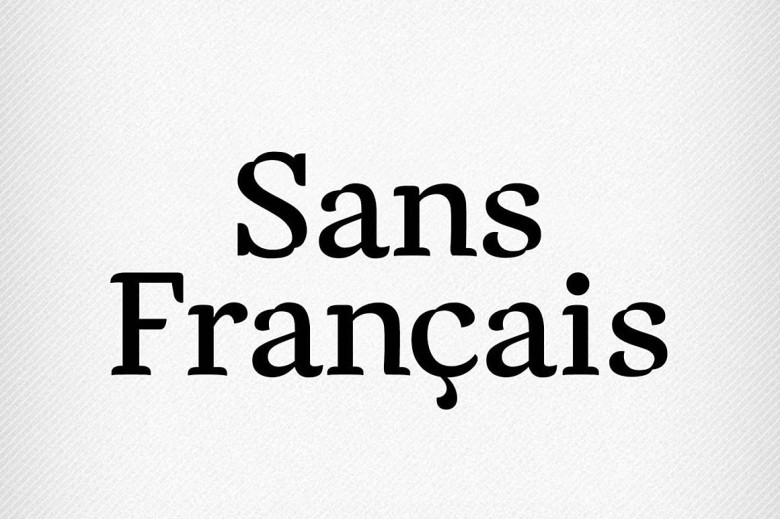
Sans Francais Font
Introducing Sans Francais Font! Is a Serif typeface western modern. Sans Francais designed and shared by Fairgoods, Typographer Shauna Hartsook. The letters were constructed from her calligraphic drawings based on the humanist model. Shauna loved the unique “pinch” element that was naturally created by the calligraphy tool, so she exaggerated this element as well as the rounded terminals and serifs. In addition to the 26 upper and lowercase letters in the English language, this typeface also includes old-style numerals, punctuation, ligatures and several diacritics. The typeface is a high-contrast and is intended for display purposes.